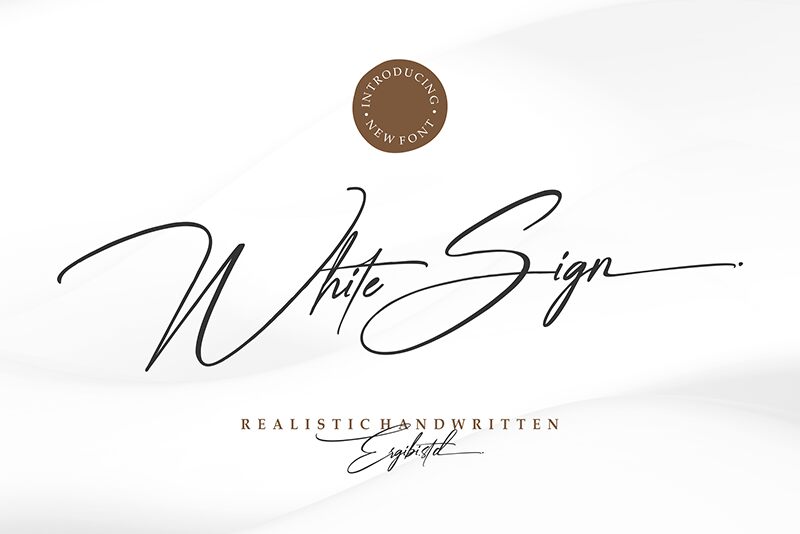
White Sign (Demo Version)
White Sign font by Riyadh Rahman is a free light signature script font that glides across the page with airy spacing, long sweeping entry strokes, and silky pressure shifts. Its inky, hairline loops and extended terminals create that coveted “hand-signed” rhythm—elegant without turning fussy, expressive yet still legible at headline sizes. The forms keep a graceful baseline and gentle contrast, making it feel luxe and effortless rather than over-stylized.
Using White Sign, your brand marks and headlines gain an immediate boutique polish. It shines on logo signatures, wedding invitations, beauty or candle packaging, photography watermarks, social media covers, and premium business cards. This free font rewards generous sizing and loose tracking; pair it with a clean, neutral sans-serif to let the script lead while body copy stays crisp and quiet.